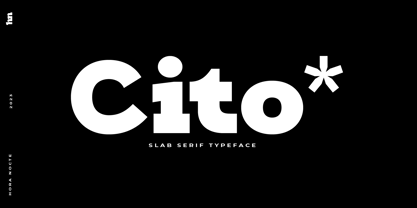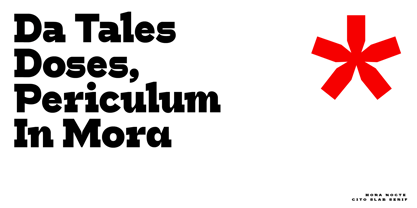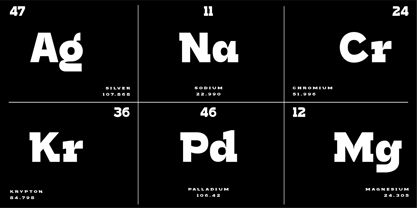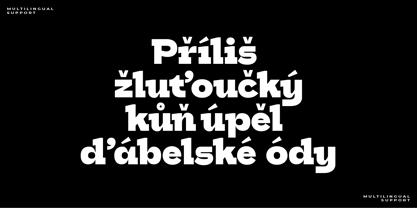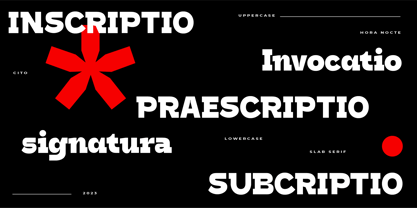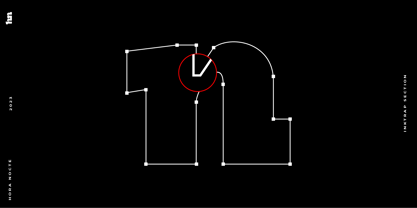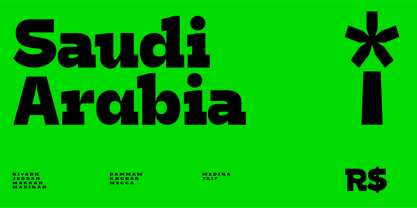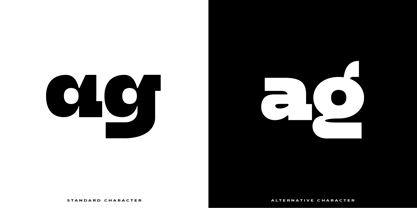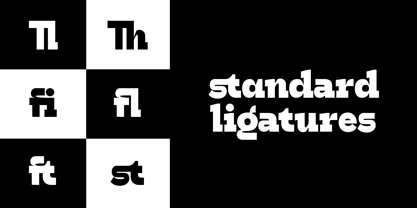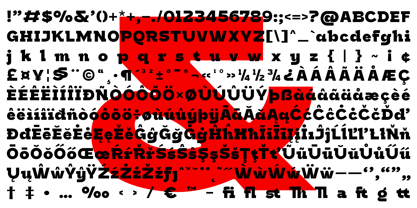
The HN Cito Font Family was designed by Hasto Nugroho and published by Hora Nocte Type Foundry. HN Cito contains 1 styles. More about this family
HN Cito is a powerfull, passion crafted typeface that strong slab serif and deep ink traps in its heavier weight mo makes unique feels. It was design to be versatile, to blend in your designs. Whether you're looking for a font for a headline, logo, or any other design project, HN Cito is a right choice to make a bold statement and capture attention.
Designers: Hasto Nugroho
Foundry: Hora Nocte Type Foundry
HN Cito